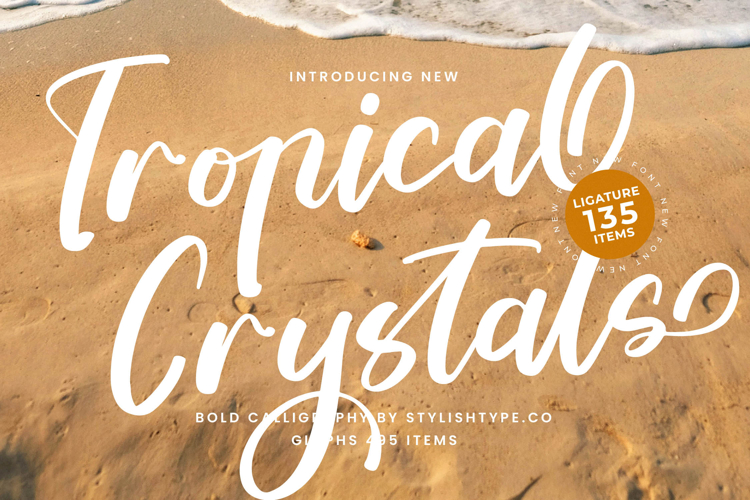
Tropical Crystals - Bold Calligraphy Font
Discover the captivating allure of Font Tropical Crystals - Bold Calligraphy Font Script, a masterful creation embodying both boldness and delicate artistry. This exquisite script font boasts naturally flowing strokes and a handcrafted aesthetic, instantly infusing designs with warmth and authentic charm. Its vibrant, expressive curves evoke effortless elegance, perfect for projects demanding genuine personality and sophisticated appeal.
Unleash unparalleled design flexibility with the comprehensive features of Font Tropical Crystals - Bold Calligraphy Font Script. Featuring an impressive array of over 135 ligatures and 495 glyphs, this font offers incredible customizability for unique typography. With its extensive multilingual support, Font Tropical Crystals - Bold Calligraphy Font Script adapts seamlessly across global markets, making it incredibly versatile for international projects.